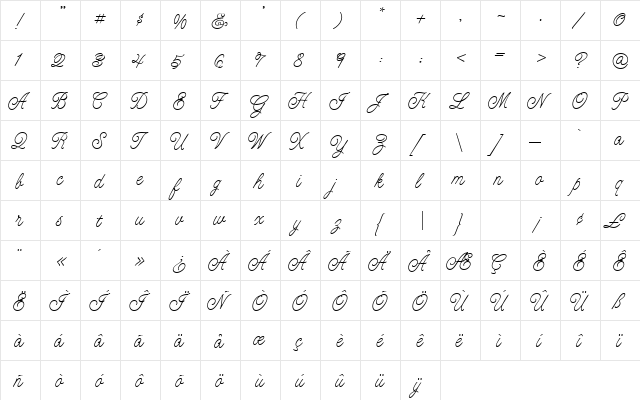
CAC Lasko Even Weight Regular
Design Context for CAC Lasko Even Weight Typeface
CAC Lasko Even Weight offers clean, dependable letterforms without strong stylistic allegiance, making it a practical choice for designers who need flexibility.